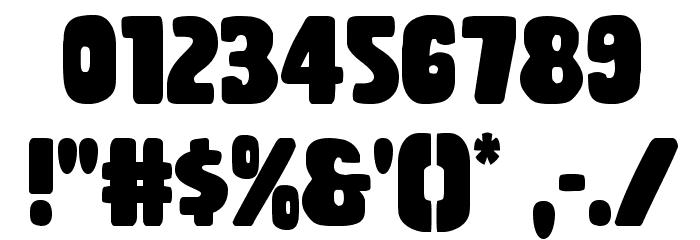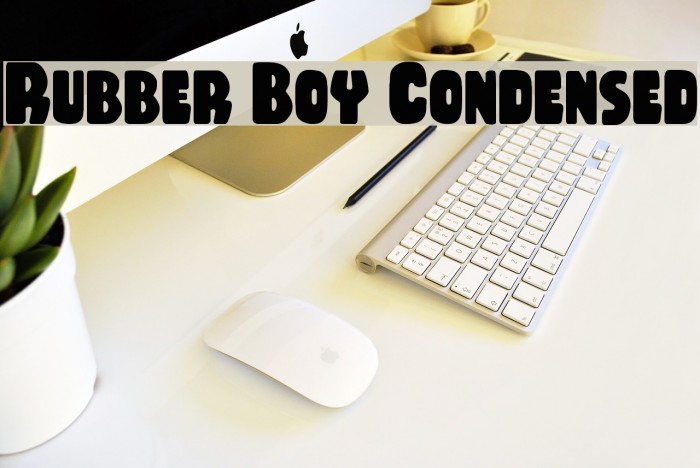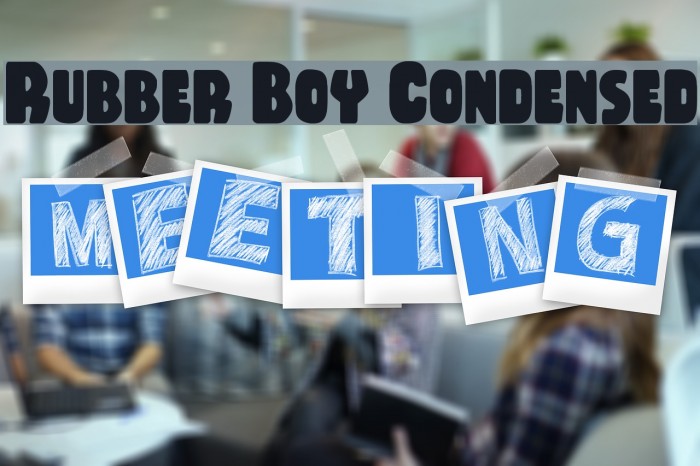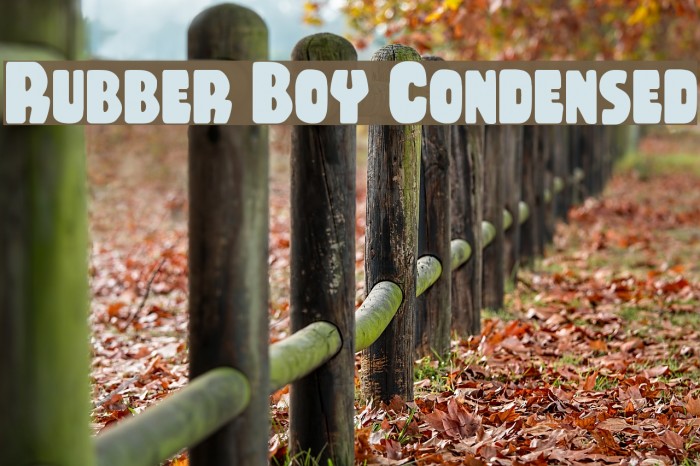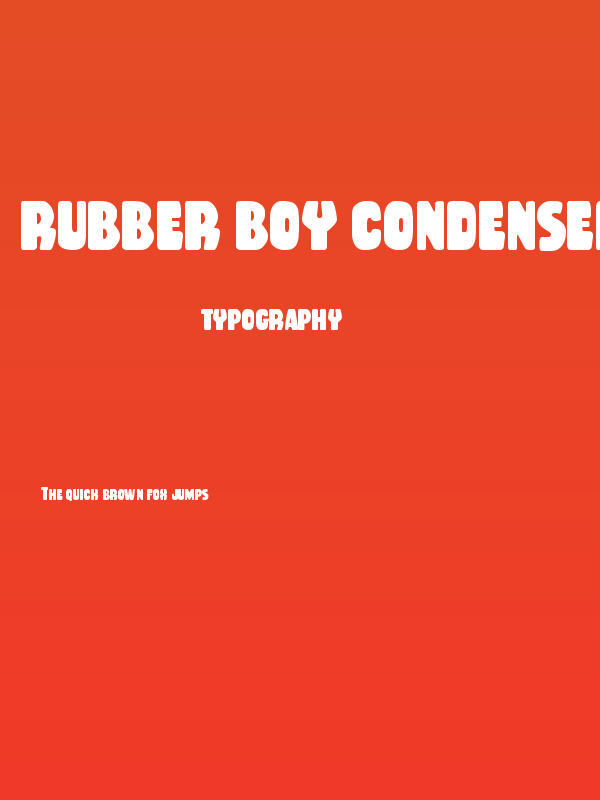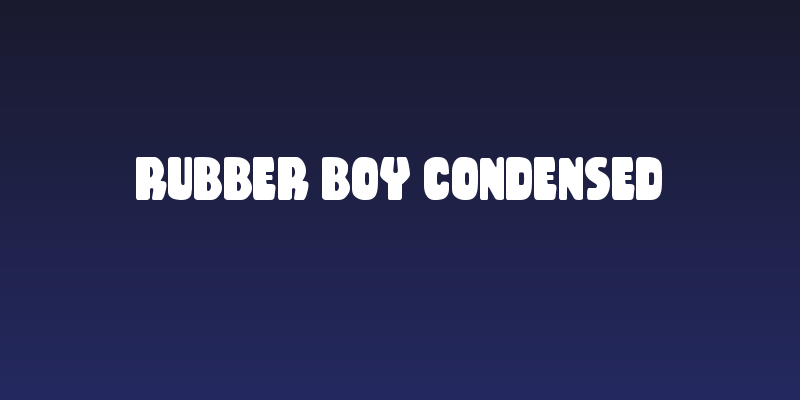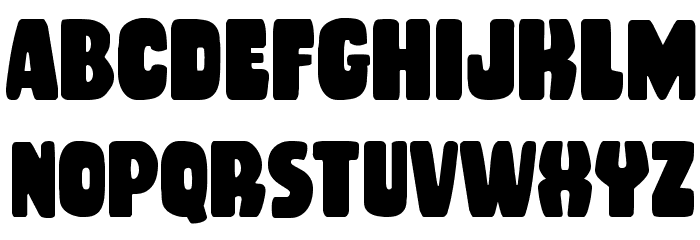
Rubber Boy Condensed Font
Rubber Boy Condensed Description
This font features a bold and playful design with rounded edges and a condensed structure. The characters are thick and have a soft, almost inflated appearance, giving them a friendly and approachable feel. The uppercase and lowercase letters maintain a consistent weight, contributing to a cohesive look. The numbers and special characters follow the same design principles, ensuring uniformity across all glyphs. This font's unique style makes it stand out, making it ideal for projects that require a fun and energetic vibe.
| Overall Style | Playful, Modern |
| Proposed Projects | Ideal for children's books, playful branding, posters, and event invitations. |